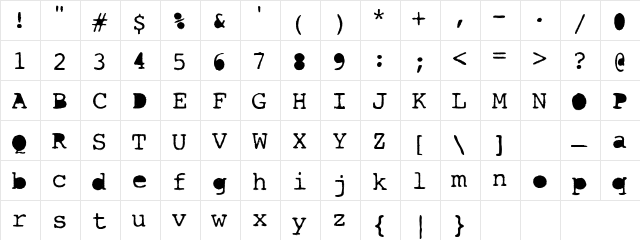
AL Oxygen Regular
Design Context for AL Oxygen Typeface
AL Oxygen takes a measured approach to typography — its balanced proportions and neutral character make it a reliable workhorse for both digital and print work.
Pro Tip: Use AL Oxygen in both headline and body roles to test its range before committing to a single application.